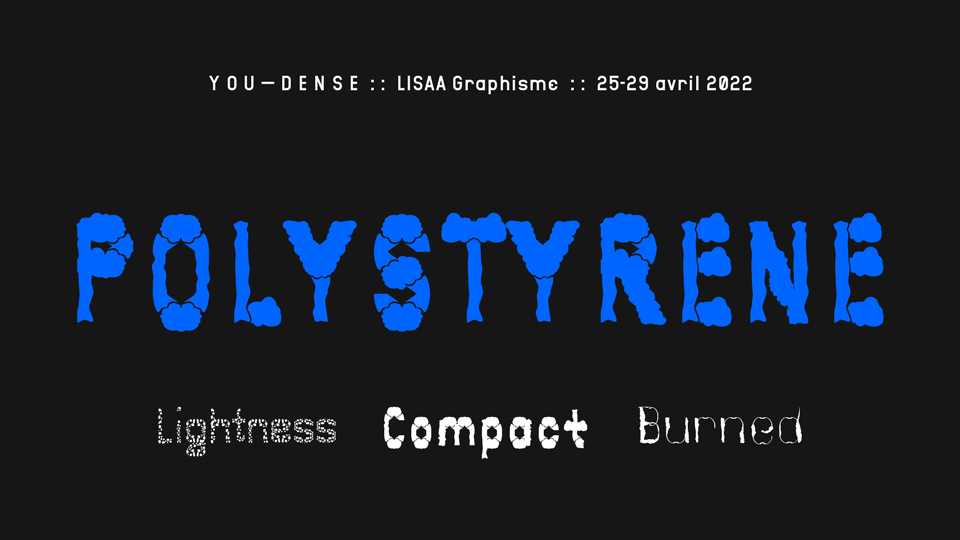
Download You Dense Polystyrene, a part of the super type family of 16 typefaces designed during a workshop given by Lucas Descroix and Benjamin Dumond. The typeface is based on the density of Polystyrene material and composed of three cuts that interpret this density in different ways.